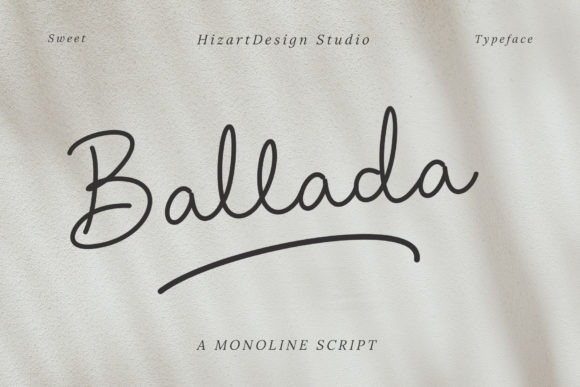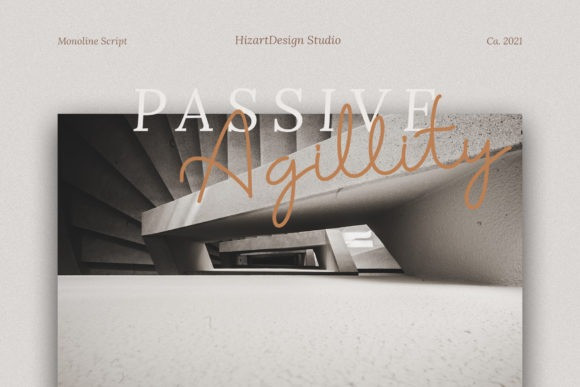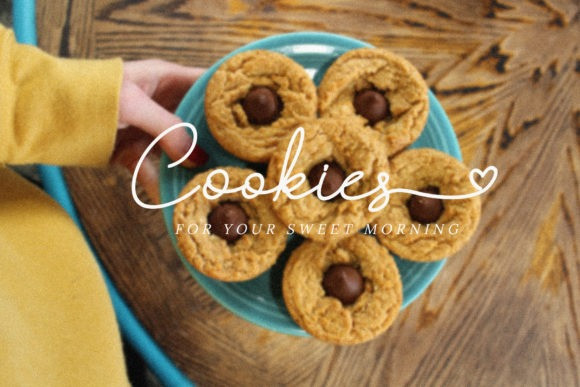
Ballada Font
Ballada is a thin lettered, beautiful and delicate handwritten font. It is PUA encoded which means you can access all of the glyphs and swashes with ease!